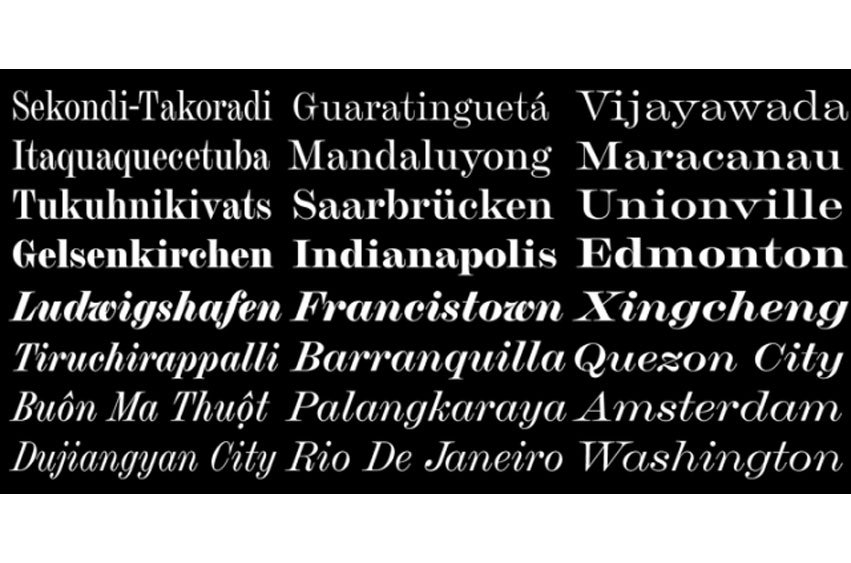
Chapman Font
Chapman Font is the result of spending too many hours staring at the often all-capital engraver typefaces from long-gone foundries. The wide serifs, high contrast, and various widths seem to have so much character but also remain so neutral.
From these references, Chapman began to emerge. It seemed natural that the lowercase would be based on a Scotch Roman model, much like the original all-capital faces. Chapman does not pull directly from any one source but from the genres themselves.